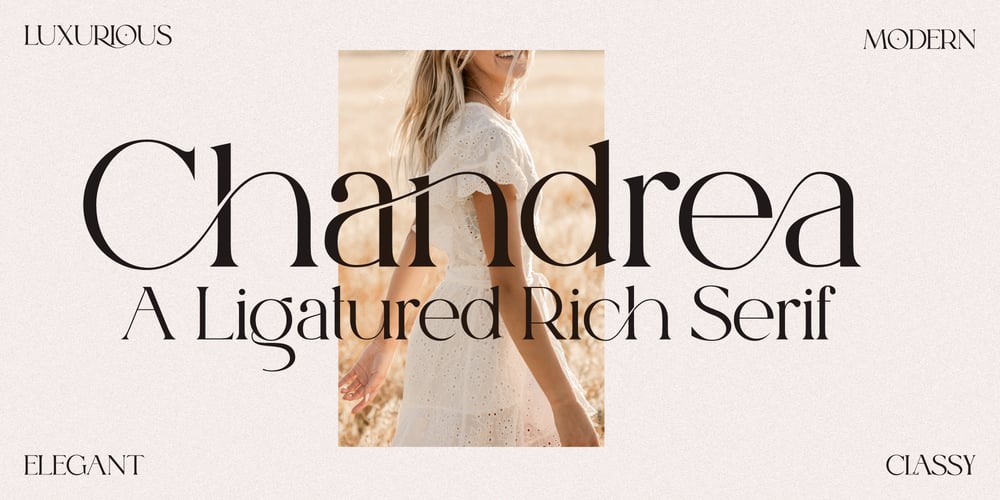
Chandrea Serif Font Family was designed by Zak M and published by Prestige Artsy Studio. Chandrea Serif contains 1 styles and family package options. Chandrea Serif is a fusion of elegance and modernity, this minimalist serif font exudes sophistication. With a wealth of exquisite ligatures and stylistic alternates, every stroke tells a story of timeless beauty, perfect for elevating your designs to new heights of refinement.I am excited to see what you can do with Chandrea Serif!